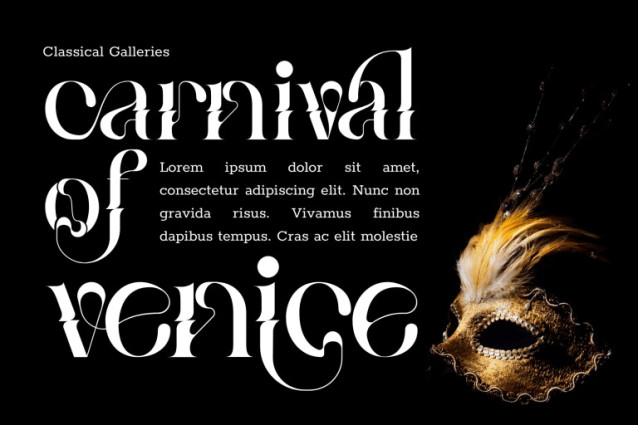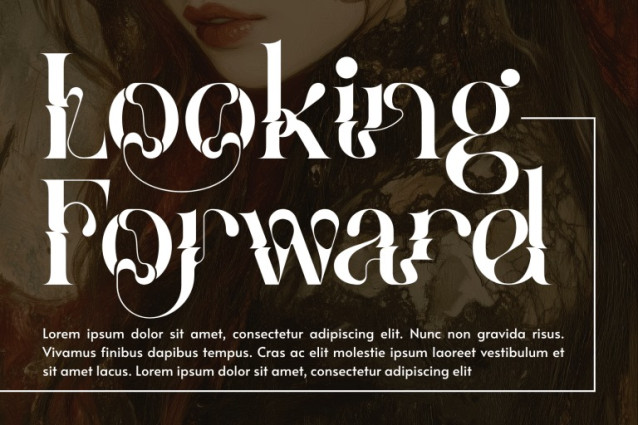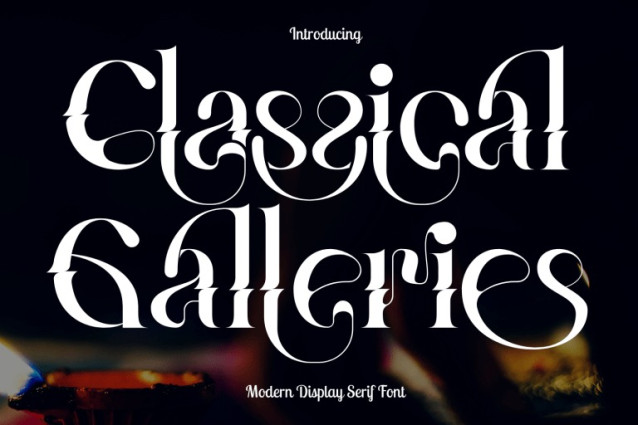
Classical Galleries Font
Classical Galleries – Ligature Serif Font – Ornamental High-Contrast Serif Display Font, an exquisite ornamental serif display font designed with dramatic high contrast, sculpted serifs, and expressive sweeping curves. This typeface blends classical elegance with modern artistic flair, using extended swashes, rounded terminals, and fluid ligature forms to create a beautifully sophisticated typographic texture. Its graceful strokes and decorative rhythm make every word feel curated and luxurious. Perfect for fashion branding, editorial layouts, packaging, invitations, logos, and high-end creative projects, Classical Galleries delivers a captivating blend of refinement and artistic boldness.
🔤Features:
Uppercase & Lowercase Letters
Around 100 Special Ligatures & Decorative Alternates
Accented Characters for multilingual support
🔤About 100 ligatures combined with Stylistic Alternates Font: